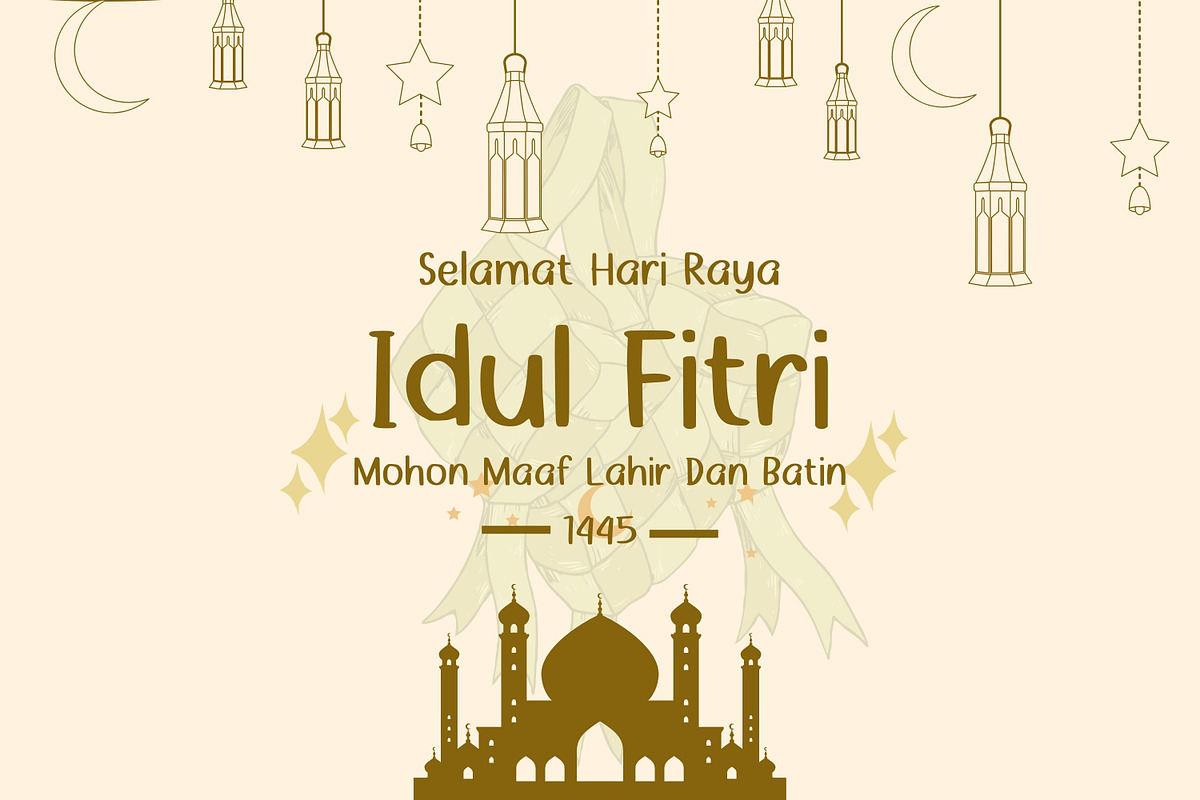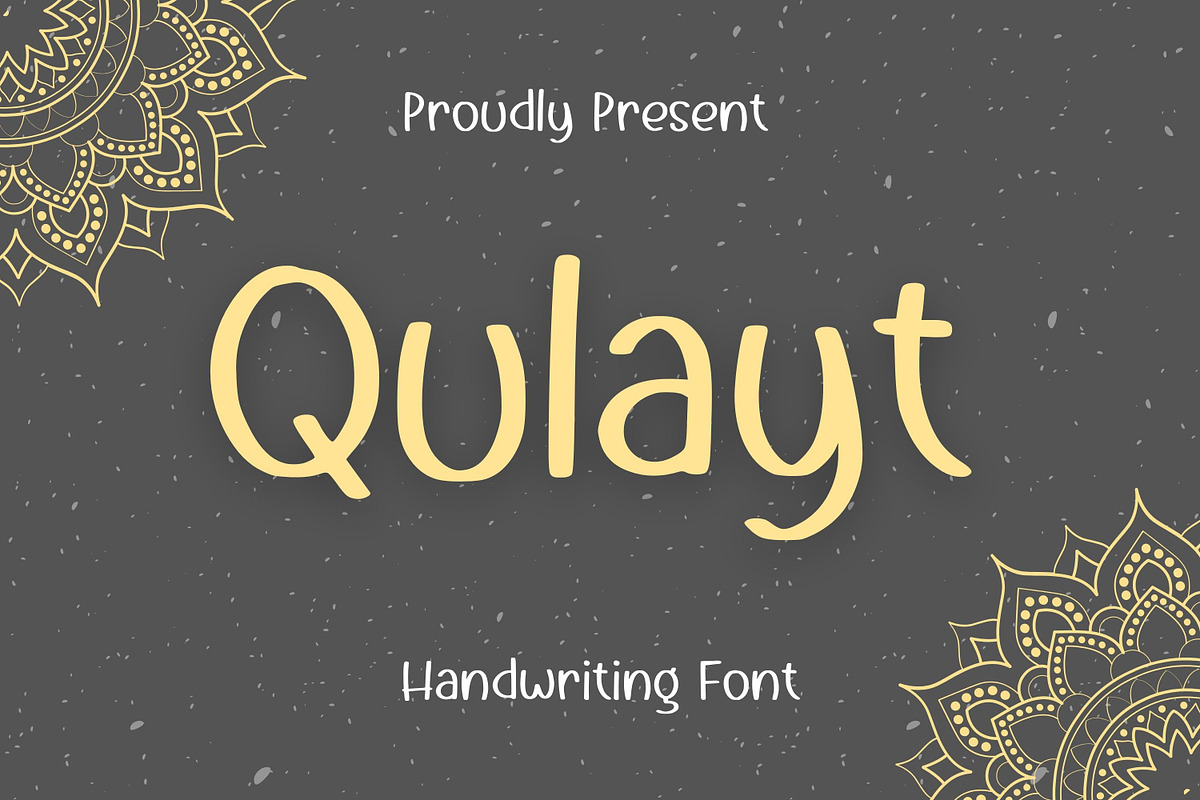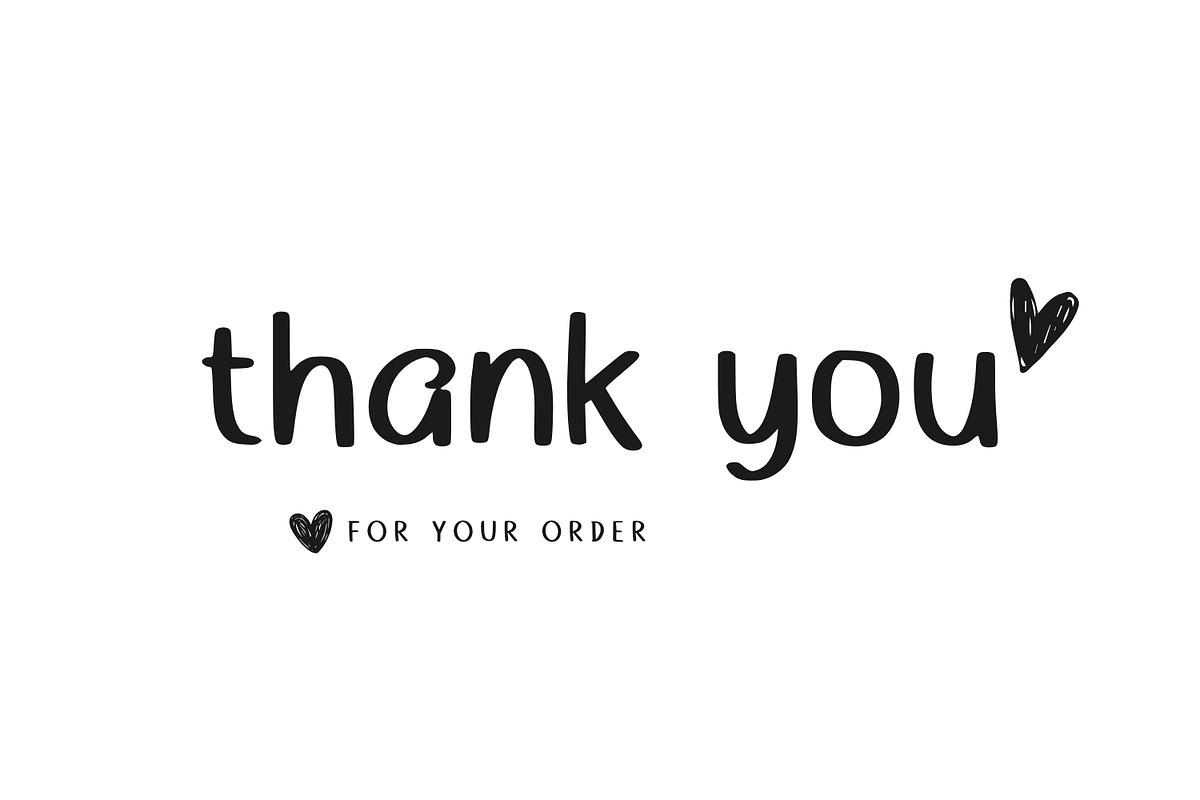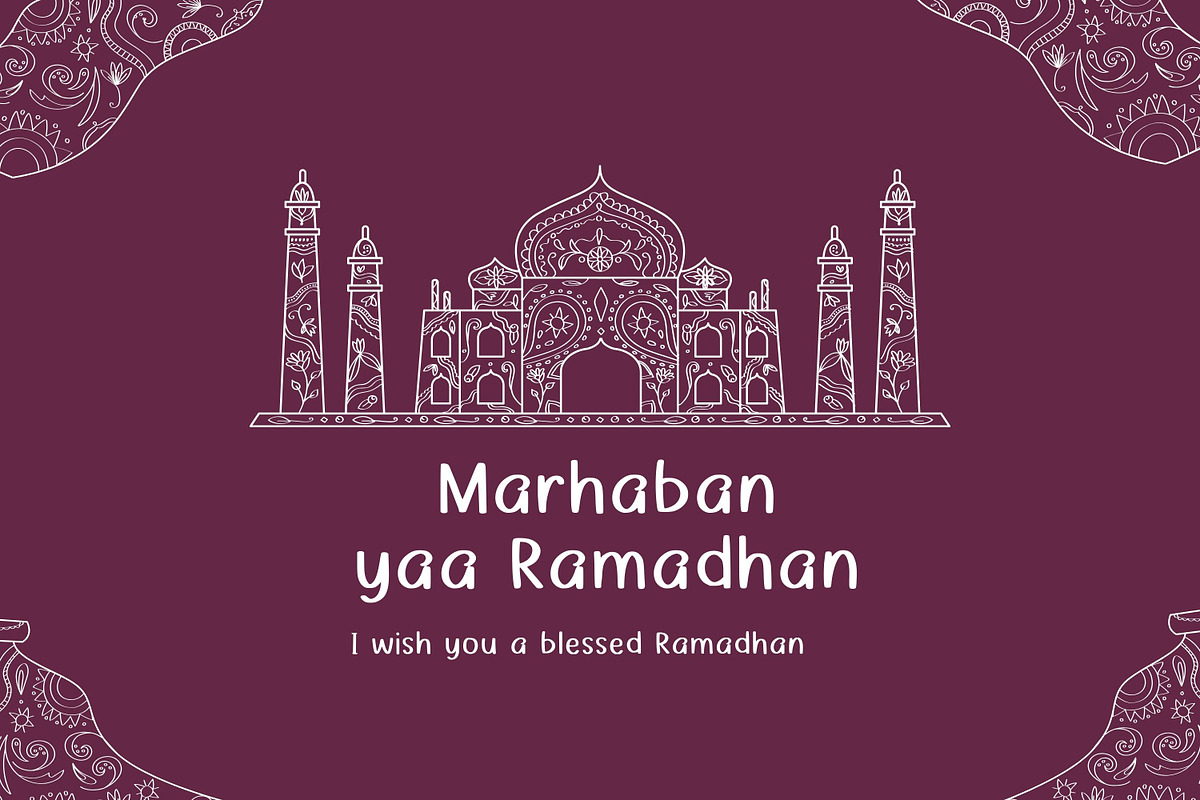
Qulayt
Discover the sophisticated style of Qulayt, a uniquely cool handwriting font. Perfect for infusing charm into your crafting projects and lending an artistic flair to your brand identity. This font effortlessly enhances your social media and marketing communications, guaranteeing a memorable aesthetic that stands out in any platform. Qulayt is not just a font, it's a design tool that elevates your content and brings your creative vision to life. With its stylish cursive strokes and modern appeal, Qulayt sets the stage for unique visual narratives. Experience the transformative power of Qulayt, turning ordinary text into creative masterpieces.